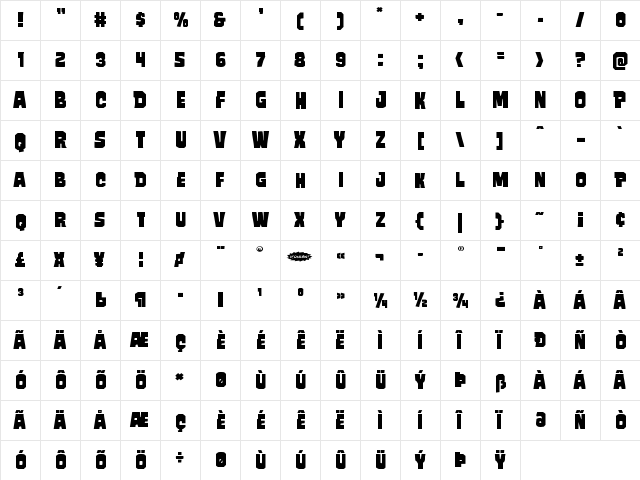
Mindless Brute Expanded Expanded
Design Context for Mindless Brute Expanded Typeface
Mindless Brute Expanded is a composed and adaptable typeface that performs quietly and consistently across a wide range of design contexts.
Pro Tip: Use Mindless Brute Expanded in both headline and body roles to test its range before committing to a single application.